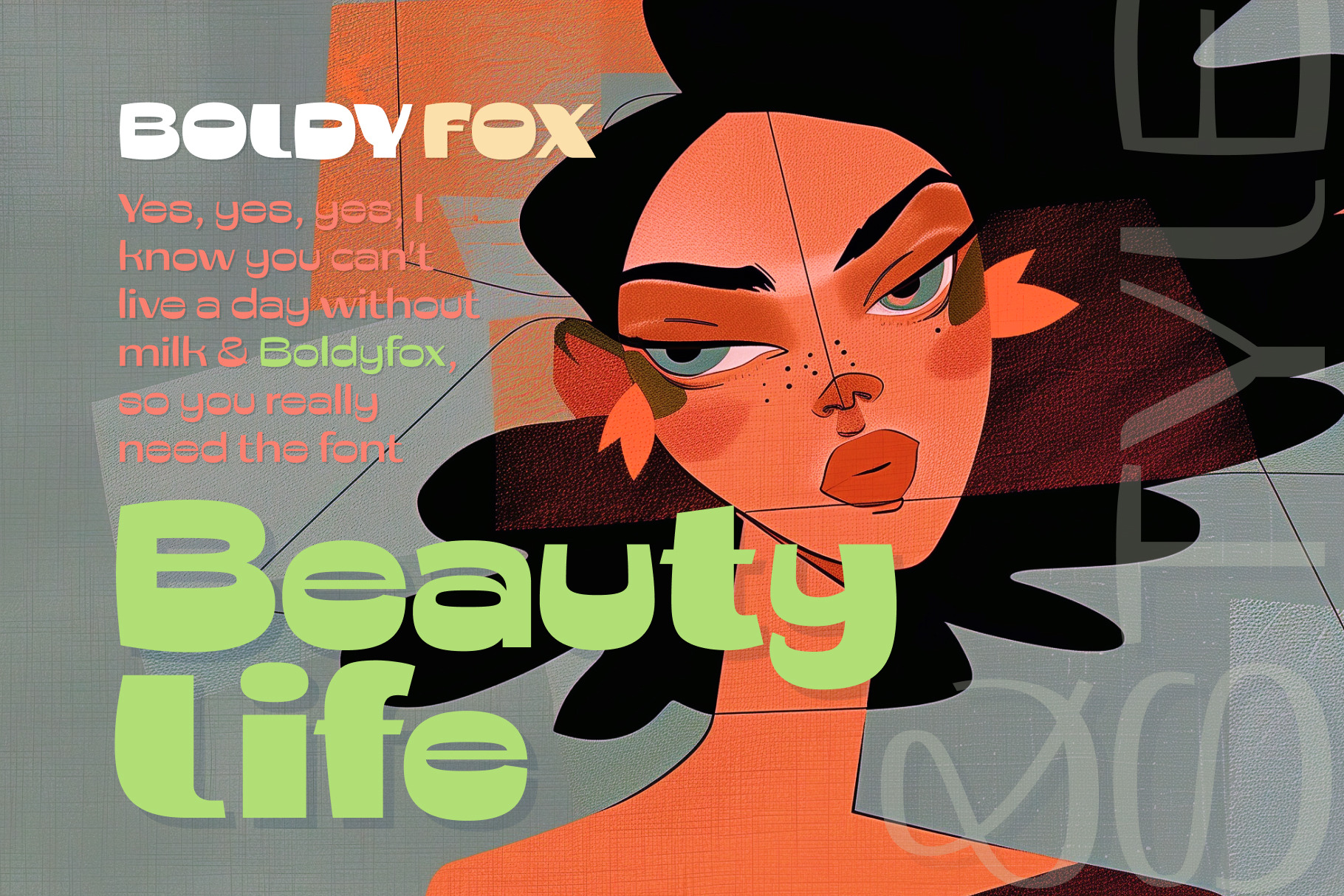
Boldyfox unic multistyle font bundle
Boldyfox - the font that redefines boldness with a striking fusion of artistic grotesque and classic motifs. Unprecedented in its design, Boldyfox stands as a testament to innovation in typography, making it an essential addition to every designer's toolkit.
Boldyfox exudes an aura of sophistication and strength, making it the perfect choice for a wide array of design projects, from sleek logos to futuristic sci-fi posters. Its unique blend of artistic flair and classic precision sets it apart from any other font you've encountered.
With its commanding presence and versatile nature, Boldyfox is capable of elevating any design to new heights. Whether you're crafting a cutting-edge brand identity or designing a sleek publication, Boldyfox delivers impact and style in abundance. The sharp angles and bold strokes of Boldyfox convey a sense of confidence and authority, while its subtle nuances and delicate details add a touch of refinement and sophistication. This balance of power and elegance makes Boldyfox a must-have addition to every designer's toolkit.
Whether you're in the realms of fashion, technology, or entertainment, Boldyfox has the versatility to complement any brand or message. Its striking presence commands attention, while its adaptability ensures seamless integration into any design concept.
Don't settle for ordinary fonts when you can make a bold statement with Boldyfox. Embrace the future of typography and unlock new possibilities for your designs with this extraordinary font. Boldyfox – redefine your design aesthetic today.